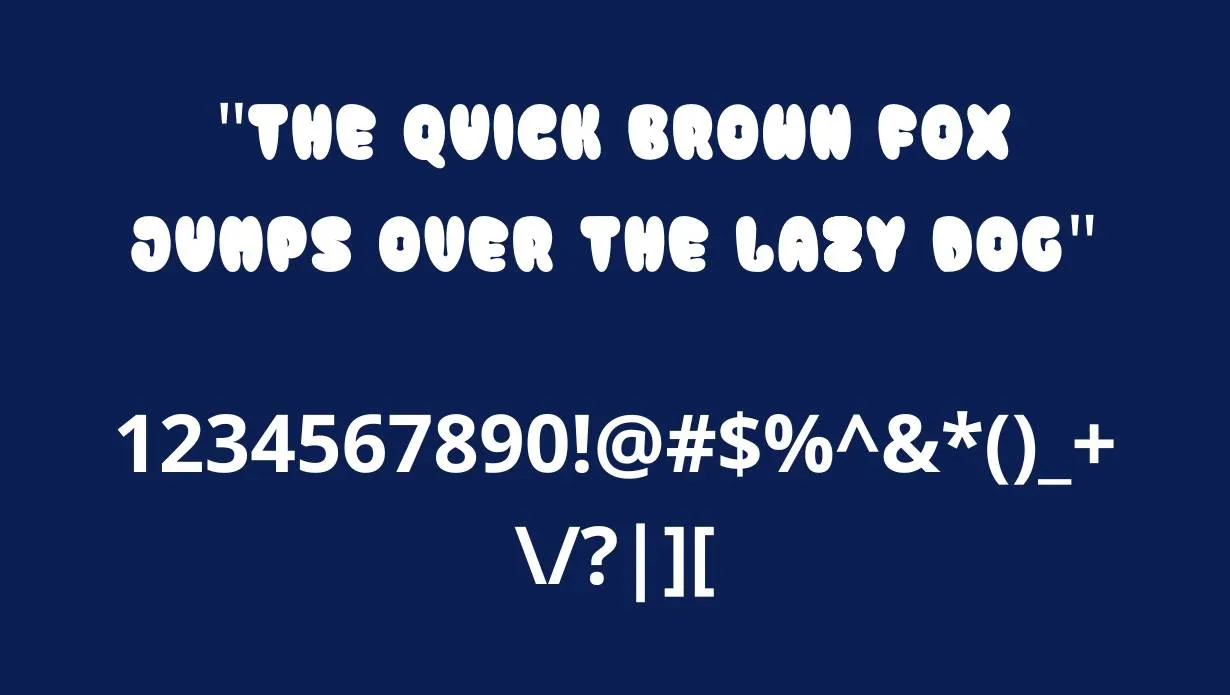
Now we talk about a very interesting fancy font that was designed by Gumacreative and manufactured by LetterStock in 2019. The look of this font is extra bold and its width is medium(normal). Unicode supported 2.0 and BMP only. This font contains 52 characters, 56 glyphs, and 1000 units per Em.
| Name | Bulb Font |
| Designer | Gumacreative |